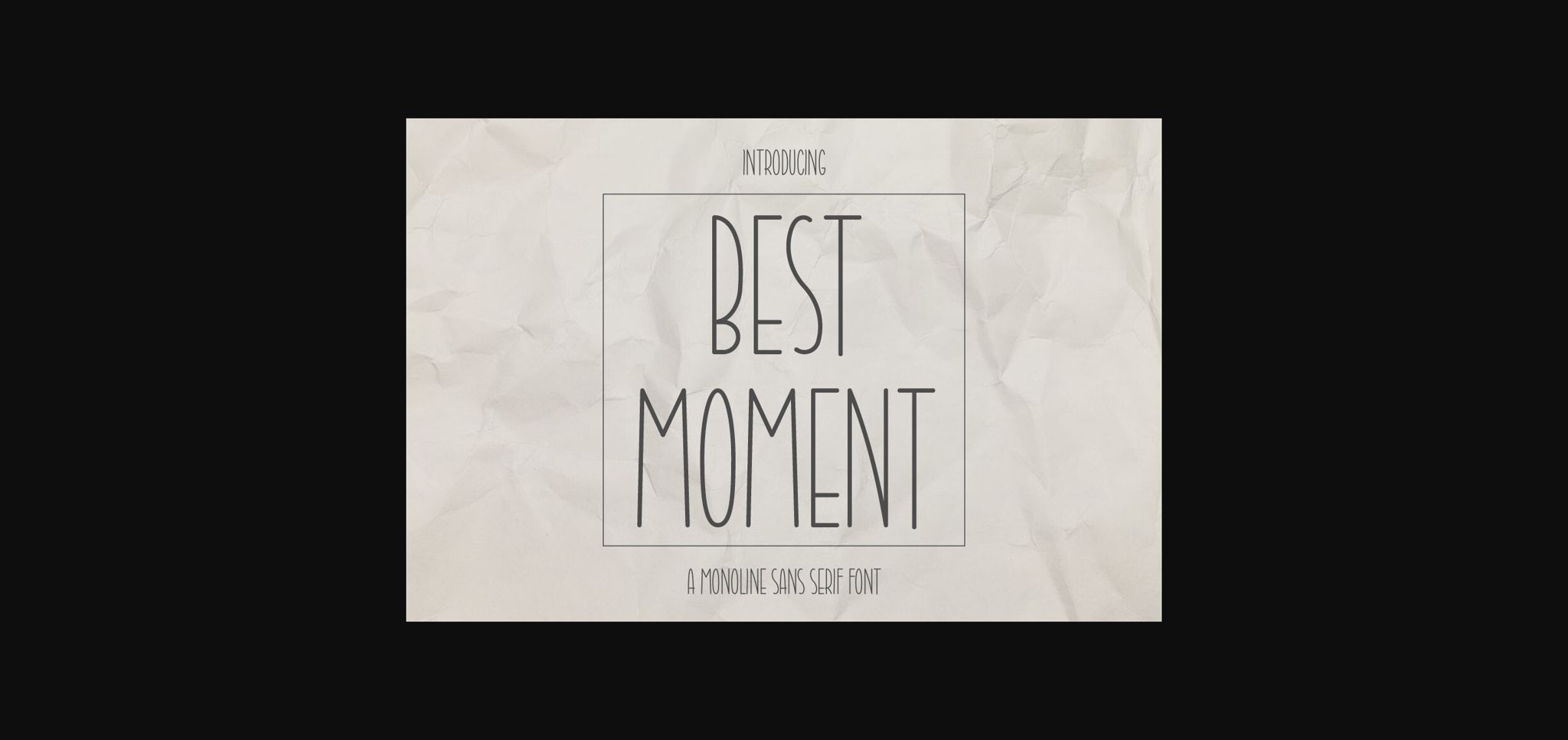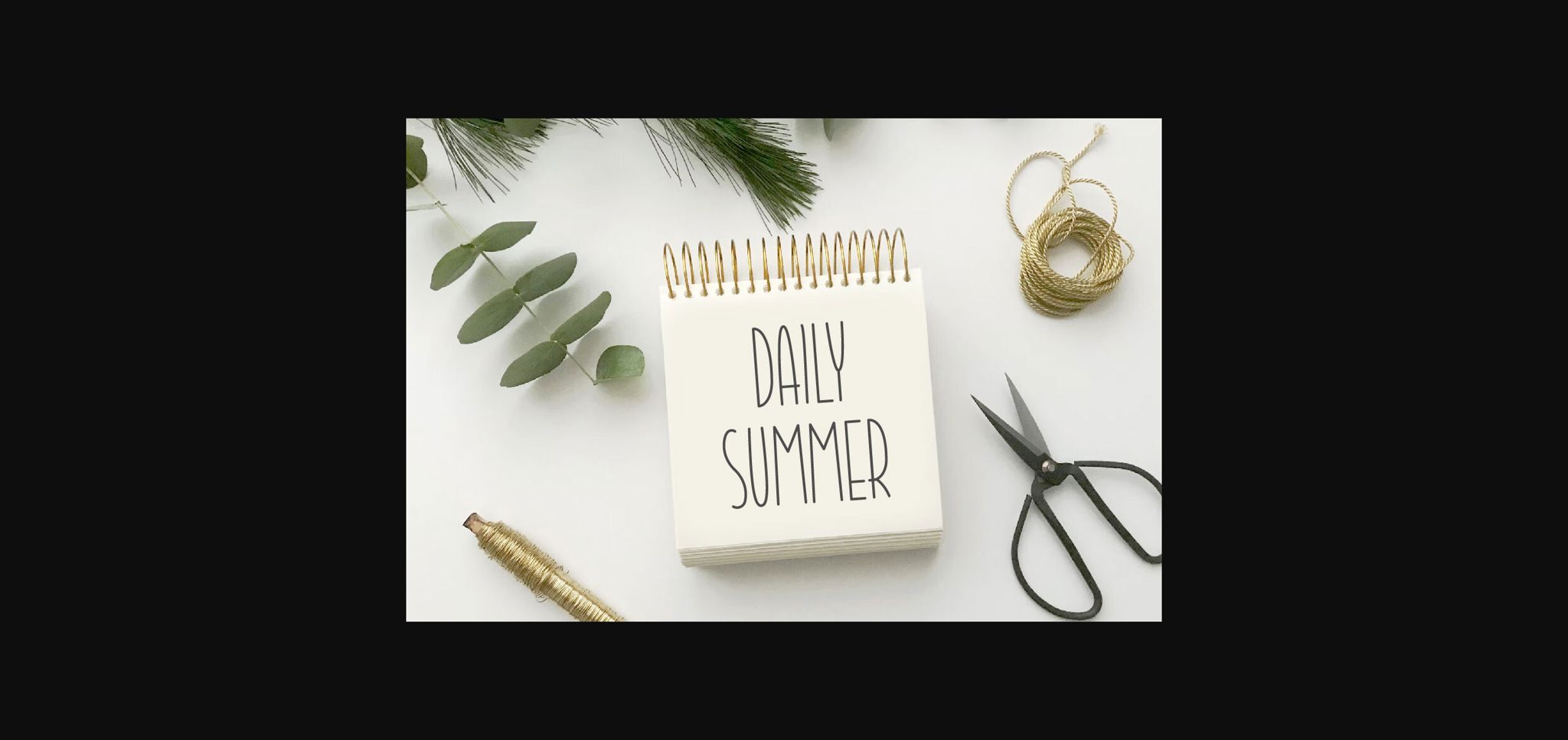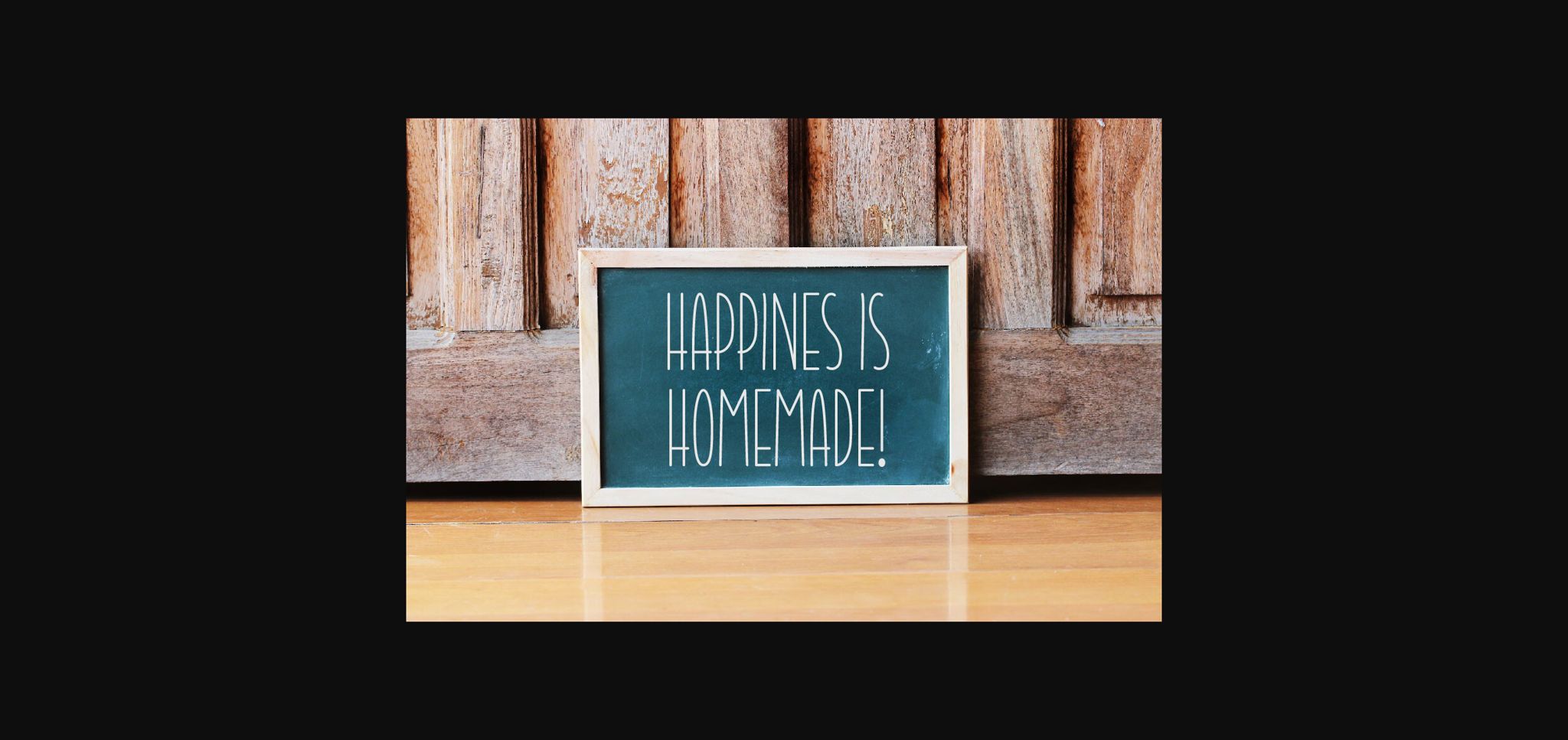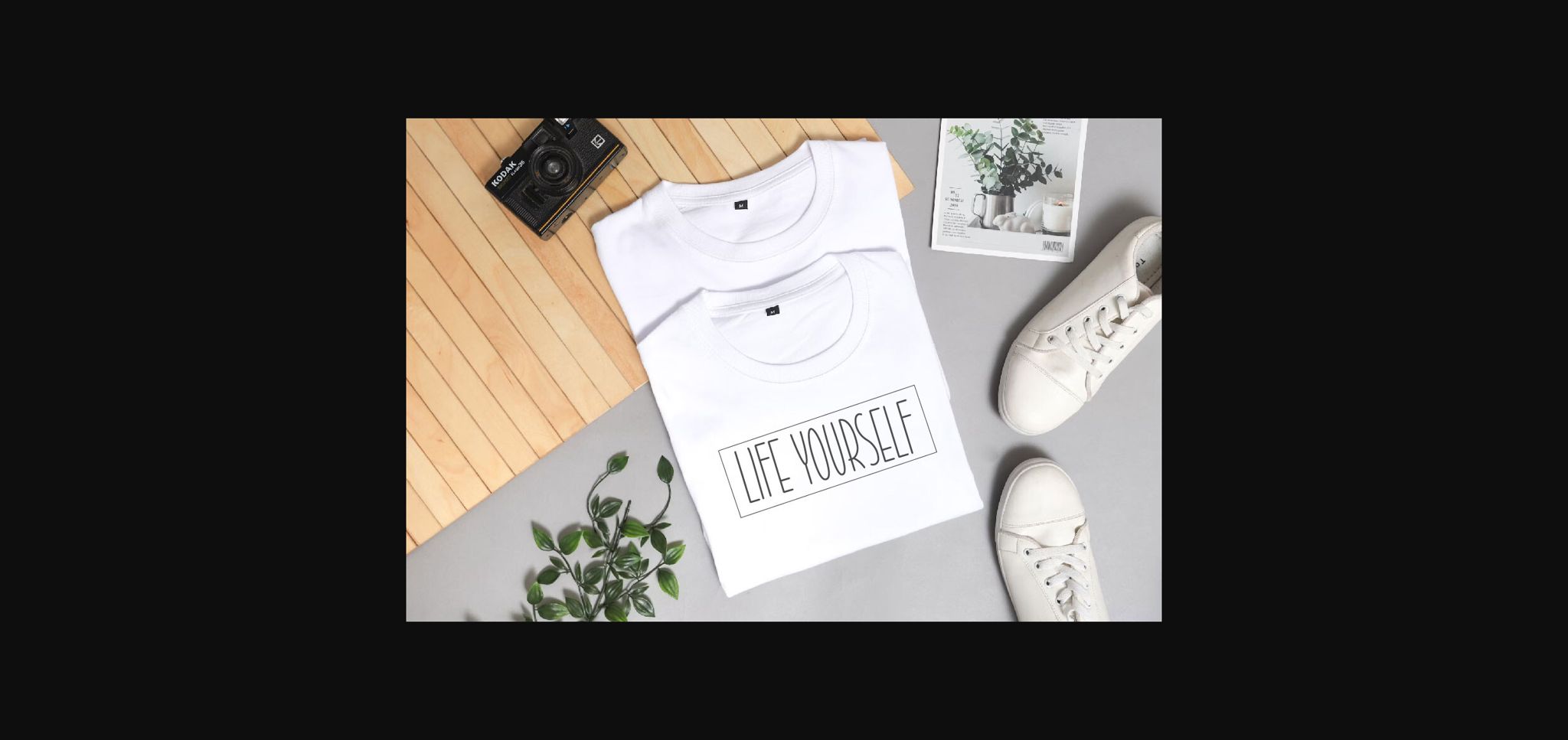
About Best Moment Font
Best Moment is a minimalist and cute sans serif font, this font is perfect for greeting cards, wedding, gift labels, mugs, t-shirts, quotes, label, etc. Use it to create spectacular and interesting designs!